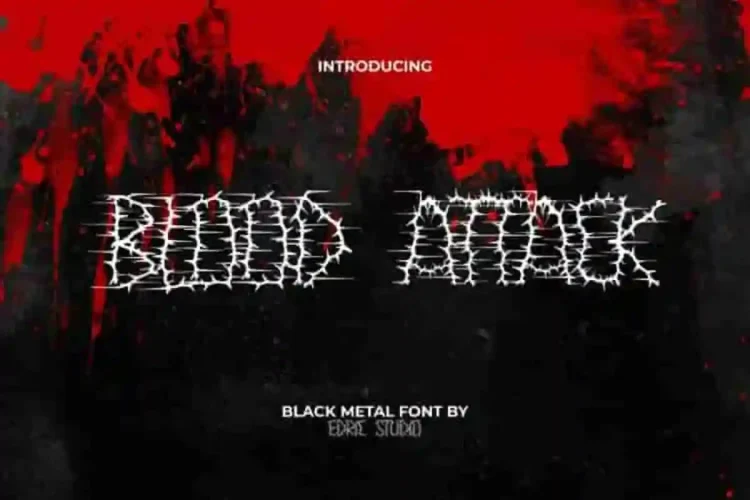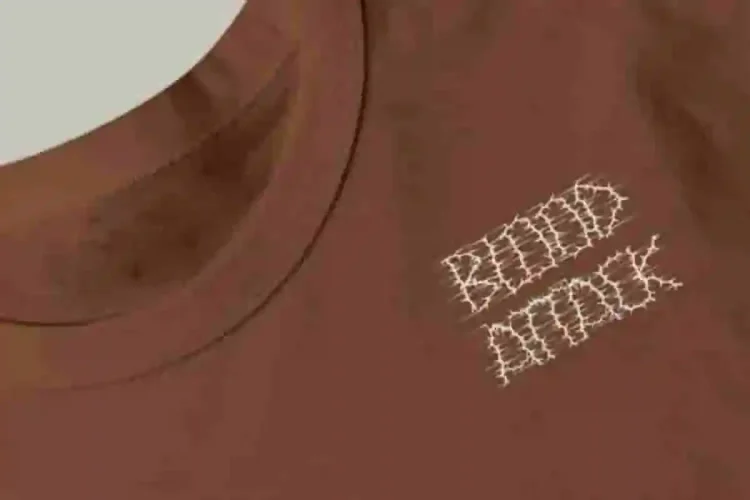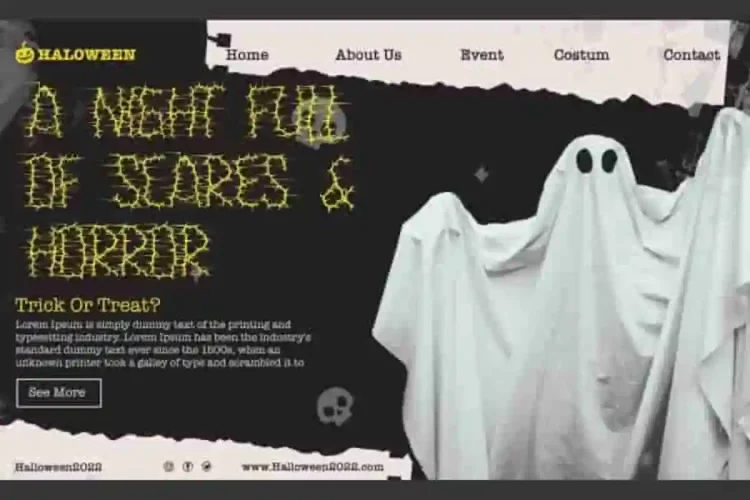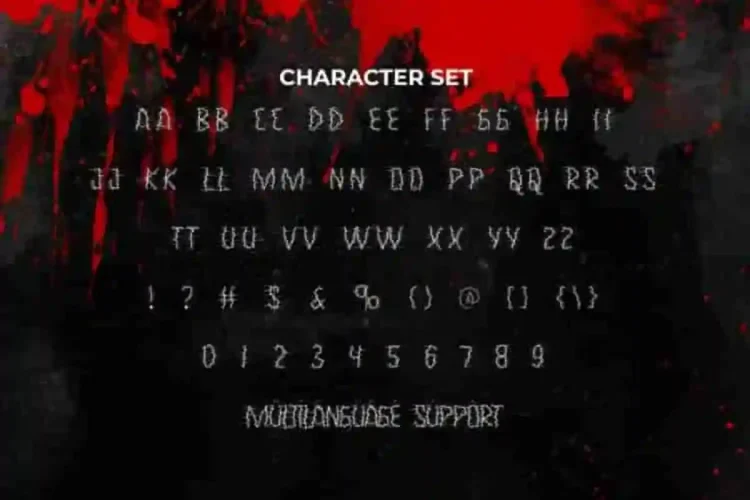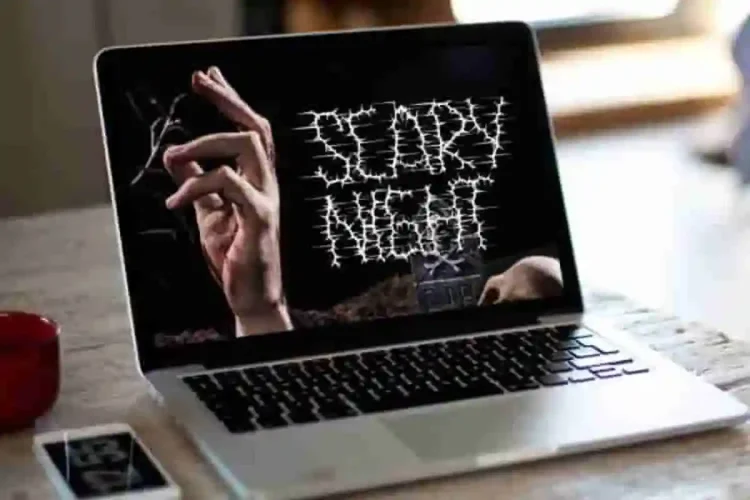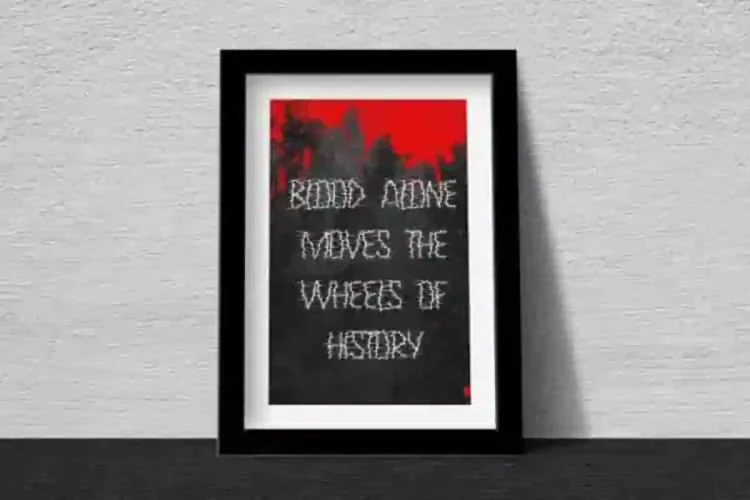
Blood Attack Display Font is a heavy black metal font with sharp and scream effect. Inspired by the chaotic visuals of black metal bands and horror cinema, this font delivers a spine-chilling vibe with its thorn-like edges and bloody attack effect. Perfect for creating designs that demand attention, it transforms ordinary text into a dark, unforgettable experience.
Blood Attack Blackletter Display Font comes with a full set of ALL CAPS for Uppercase and Lowercase letters, Number, Punctuation, and Symbol. Is ideal for horror posters, album covers, Halloween flyers, clothing embroidery, merchandise, signage, product labels, website headers, or any project that thrives on bold and scary aesthetics.
Blood Attack Font a playful typeface with unique decoration in each character. Combine different characters for a bespoke, handcrafted feel. It’s tested to work well in the Adobe Apps (Illustrator, Adobe InDesign, Adobe Photoshop) even work on Microsoft Word. Thanks to PUA encoding, every glyph and alternate character is accessible for custom creative control.